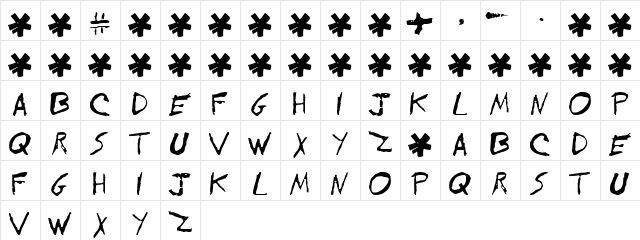
EVOL Regular
| Version | Based on SONIC YOUTH'S "EVOL" album cover. |
Design Context for EVOL Typeface
EVOL is a composed and adaptable typeface that performs quietly and consistently across a wide range of design contexts.